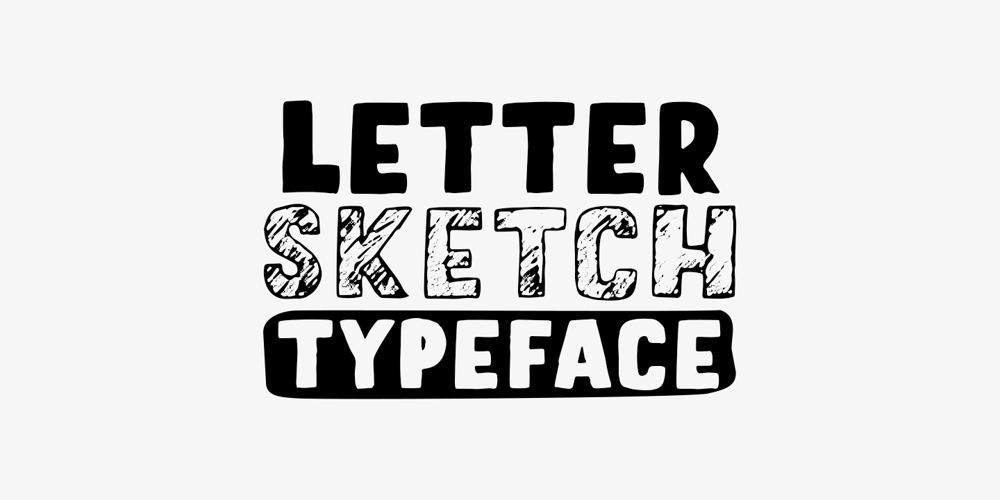
Letter Sketch Font Family was designed by Anton Cahyono and published by Motokiwo. Letter Sketch contains 2 styles and family package options. This fun typeface is great for quote, tagline, or headline. Letter Sketch is all caps hand drawn font with two style, rough sketch and filled version. It’s have natural drawing feels in each characters and give personal touch to your projects. Letter Sketch Regular : a funky rough pencil sketch font Letter Sketch Bold : the filled version of Letter Sketch Regular